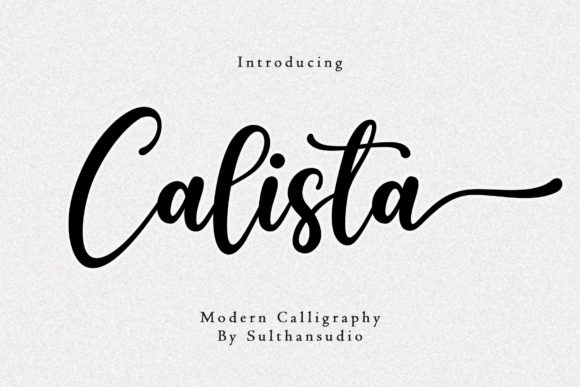
The Power of Calista Font: Elevate Your Designs with Elegance
I’ll never forget the time I was working on a wedding invitation project, and my client requested a font that was both elegant and playful. I scoured the internet, trying out font after font, but nothing seemed quite right. That was until I stumbled upon Calista Script, a superb handwritten font that instantly caught my eye. Its elegant and curvy lines made it perfect for the project, and I’ve been hooked ever since.
An Honest Review of Calista Font
• ✨ Elegant and curvy lines that add a touch of sophistication to any design
• ✅ Highly versatile and suitable for a wide range of projects, from product packaging to social media
• 🎉 Perfect for wedding designs, magazines, and branding projects
• 👍 Easy to read and understand, even in smaller font sizes
While Calista Font is an excellent choice for many projects, there are a few things to keep in mind:
• ⚠️ Some users may find the font a bit too ornate for certain designs, such as minimalist or bold projects
• 🤔 Limited use of uppercase letters, which may not be ideal for headings or titles
The Designer Inspiration Behind Calista Font
Calista Font was inspired by the beautiful calligraphy of ancient Greece and Rome. The font’s creator, a talented designer with a passion for typography, wanted to create a font that captured the elegance and sophistication of these ancient civilizations. The result is a font that’s both timeless and modern, perfect for a wide range of design projects.
Q: What is Calista Font?
Calista Font is a elegant and refined handwritten font perfect for a wide range of design projects, from product packaging to social media.
Q: Is Calista Font suitable for body text?
While Calista Font is easy to read, it’s best suited for headings and titles rather than body text. Its elegant lines and curvy shapes make it perfect for adding a touch of sophistication to your design.